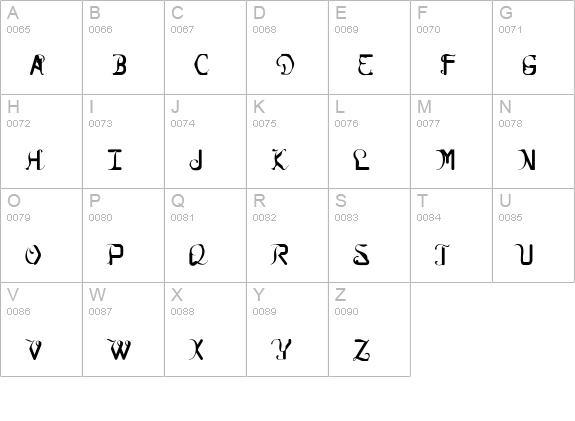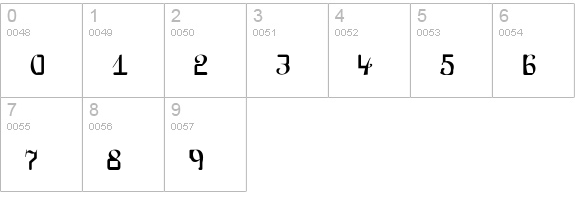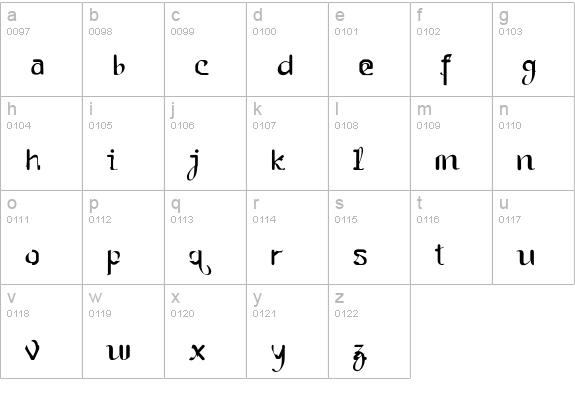
Razzia Font Details
Razzia font is a stunning typeface that exudes elegance and sophistication. Its sleek and modern design makes it the perfect choice for a wide range of creative projects, from branding and logo design to editorial layouts and website headers. The unique and eye-catching letterforms of Razzia font capture attention and add a touch of class to any project. Its smooth curves and clean lines create a harmonious balance that is both visually pleasing and legible. This versatile font is ideal for both display and text use, making it suitable for various design applications. One of the most appealing aspects of Razzia font is that it is available for free. Yes, you heard it right! This exceptional typeface can be freely downloaded at FontsMarket.com, a trusted source for high-quality fonts. Whether you are a professional designer or a hobbyist, you can now access Razzia font without any cost, allowing you to enhance your creative endeavors without breaking the bank. With its extensive character set, including uppercase and lowercase letters, numerals, and punctuation marks, Razzia font offers endless possibilities for typography experimentation. Its versatility allows you to create captivating headlines, captivating logos, and stylish branding materials that truly stand out from the crowd. In addition to its aesthetic appeal, Razzia font also boasts excellent readability, ensuring that your message is effortlessly communicated to your audience. Its clear and distinct letterforms make it easy to read, even at smaller sizes, making it a practical choice for both print and digital projects. Whether you are designing a magazine spread, a website, or a brand identity, Razzia font is a must-have in your font collection. Its timeless elegance, versatility, and readability make it a reliable choice for any design project. And the best part? It's free! Don't miss out on the opportunity to download Razzia font at FontsMarket.com and elevate your designs to new heights.